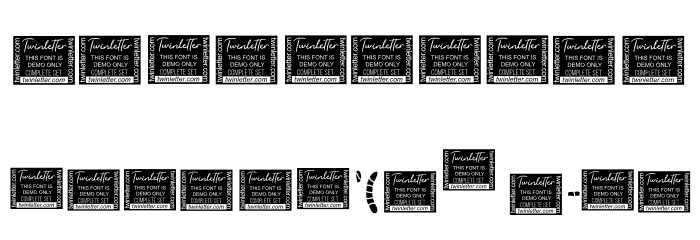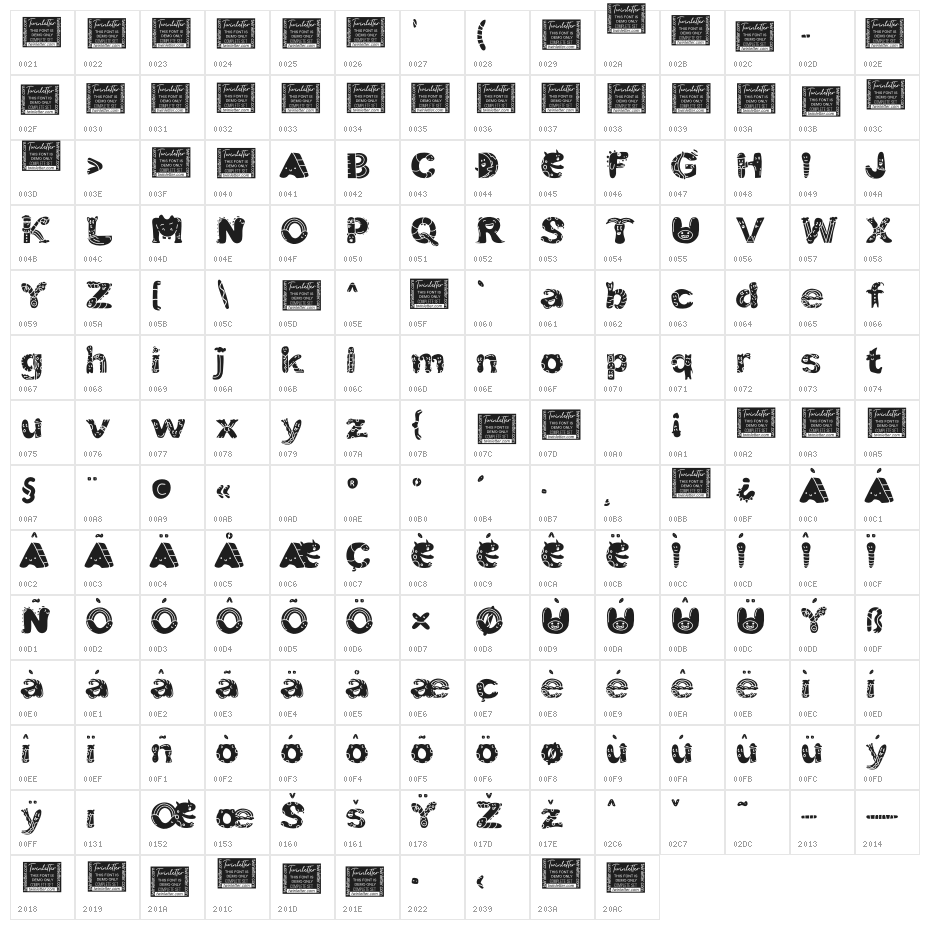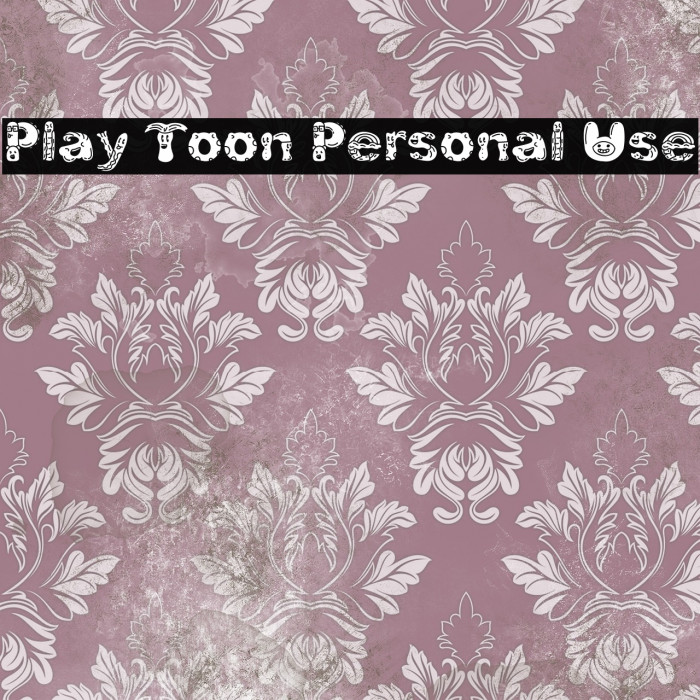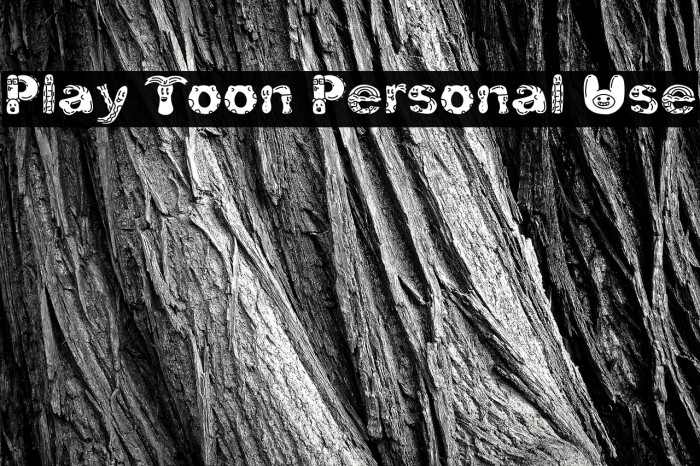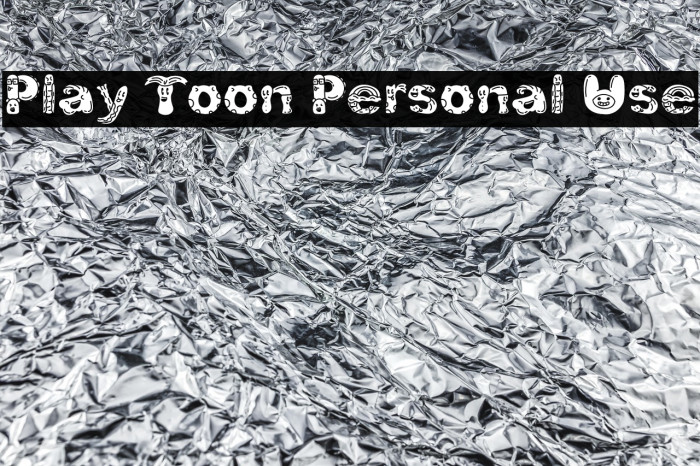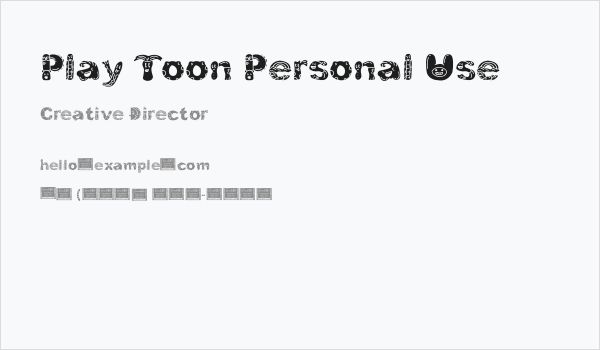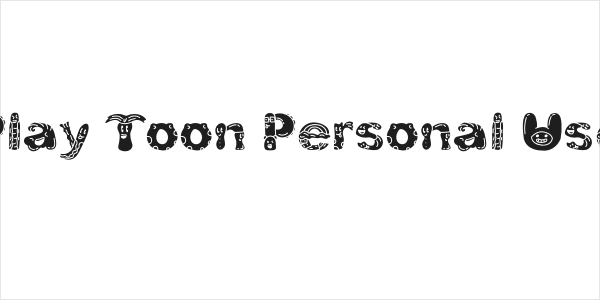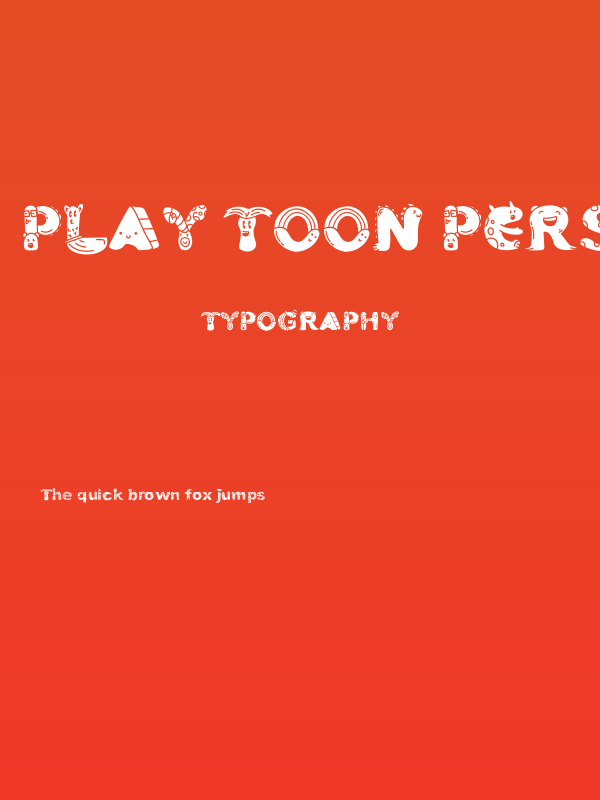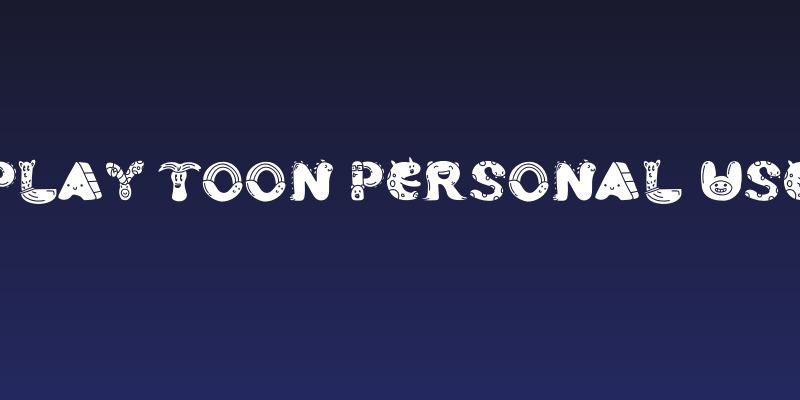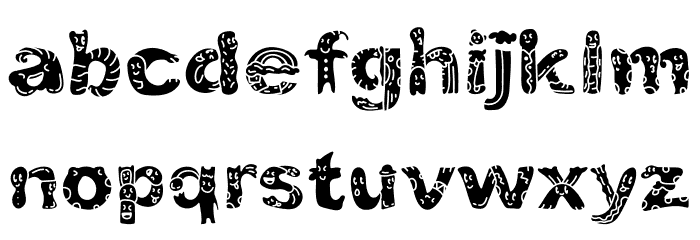
Play Toon Personal Use Font
Play Toon Personal Use Description
This playful and whimsical font features a variety of decorative elements within each character, creating a lively and animated appearance. The letters are bold and filled with unique patterns and shapes, giving them a cartoon-like quality. The uppercase and lowercase letters maintain a consistent style, with each character showcasing its own distinct design. The font includes numbers and a selection of special characters, all adhering to the same playful theme. This font is perfect for projects that require a fun and engaging visual element.